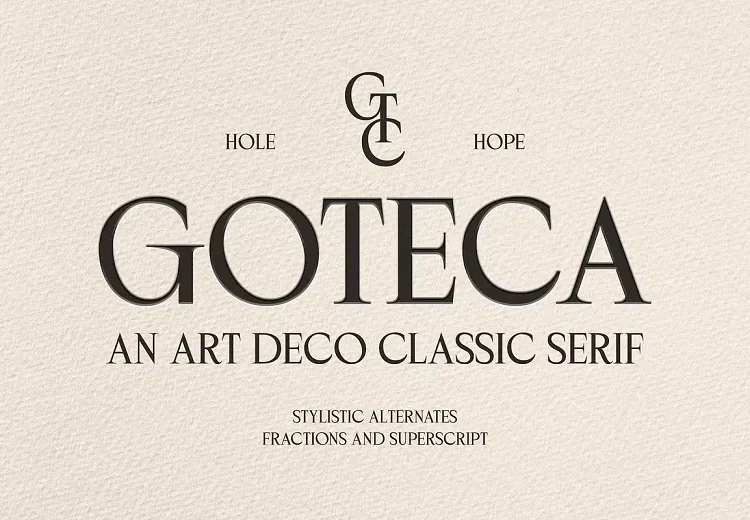
Goteca Font
Goteca, an art deco classic serif font by Hole Hope Design, features fine, delicate strokes that evoke a sense of vintage charm and modern minimalism. This font is ideal for vintage enthusiasts and those who appreciate a clean, contemporary aesthetic. Goteca’s versatility and stylish design make it perfect for a variety of applications, including logos, invitations, and editorial layouts.
The serif and intricate design of Goteca offers a nostalgic feel while maintaining a modern touch. Elevate your design projects with Goteca, where retro Chinatown influences meet contemporary simplicity.